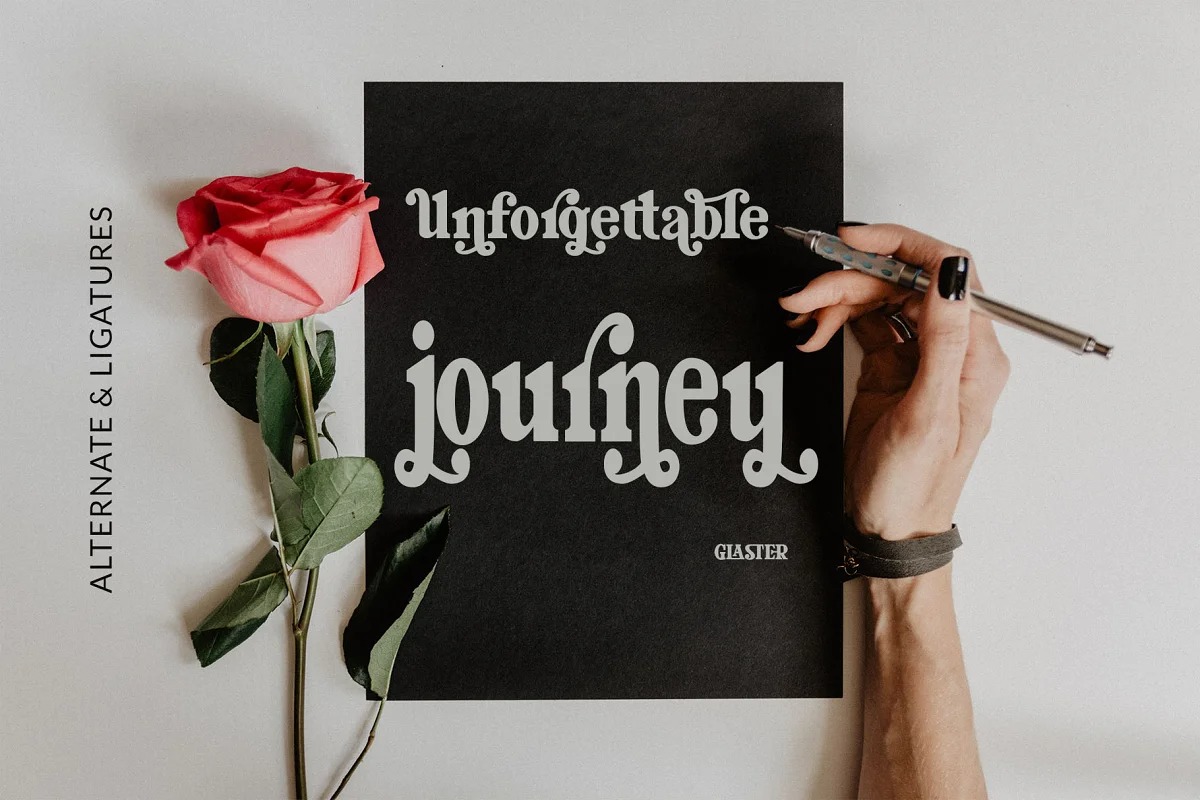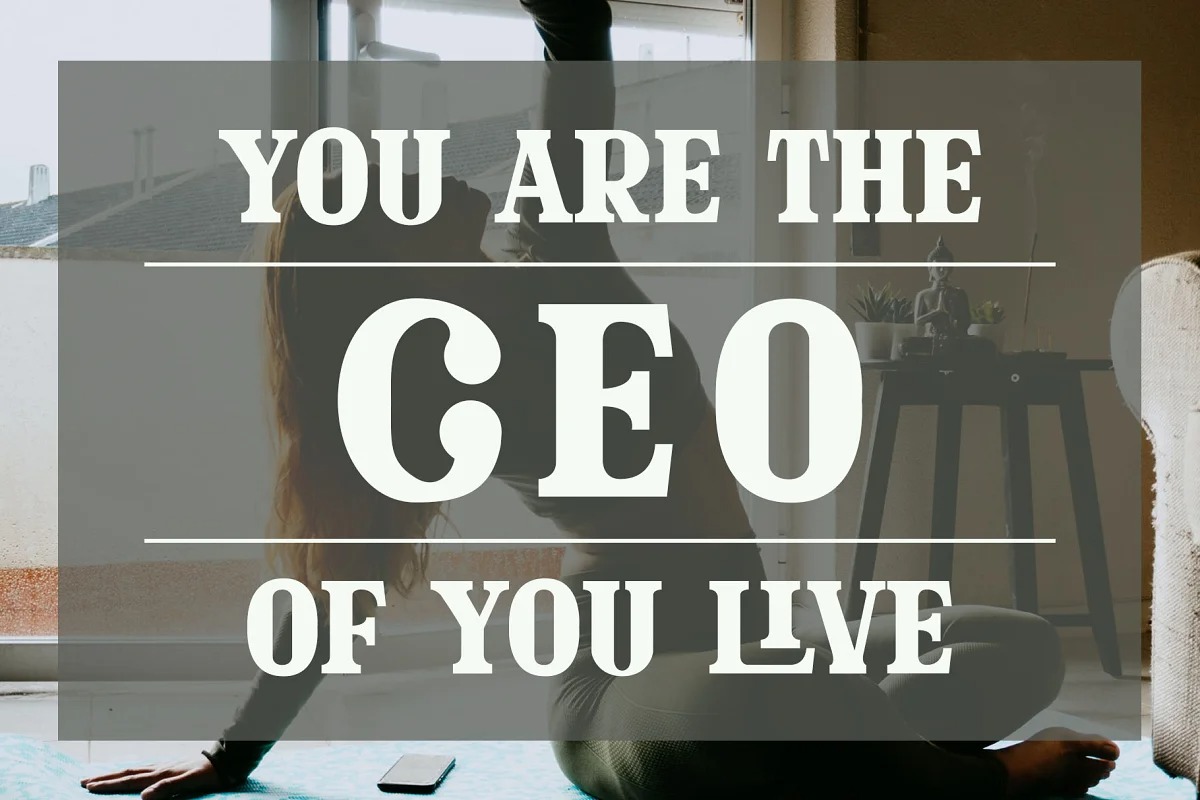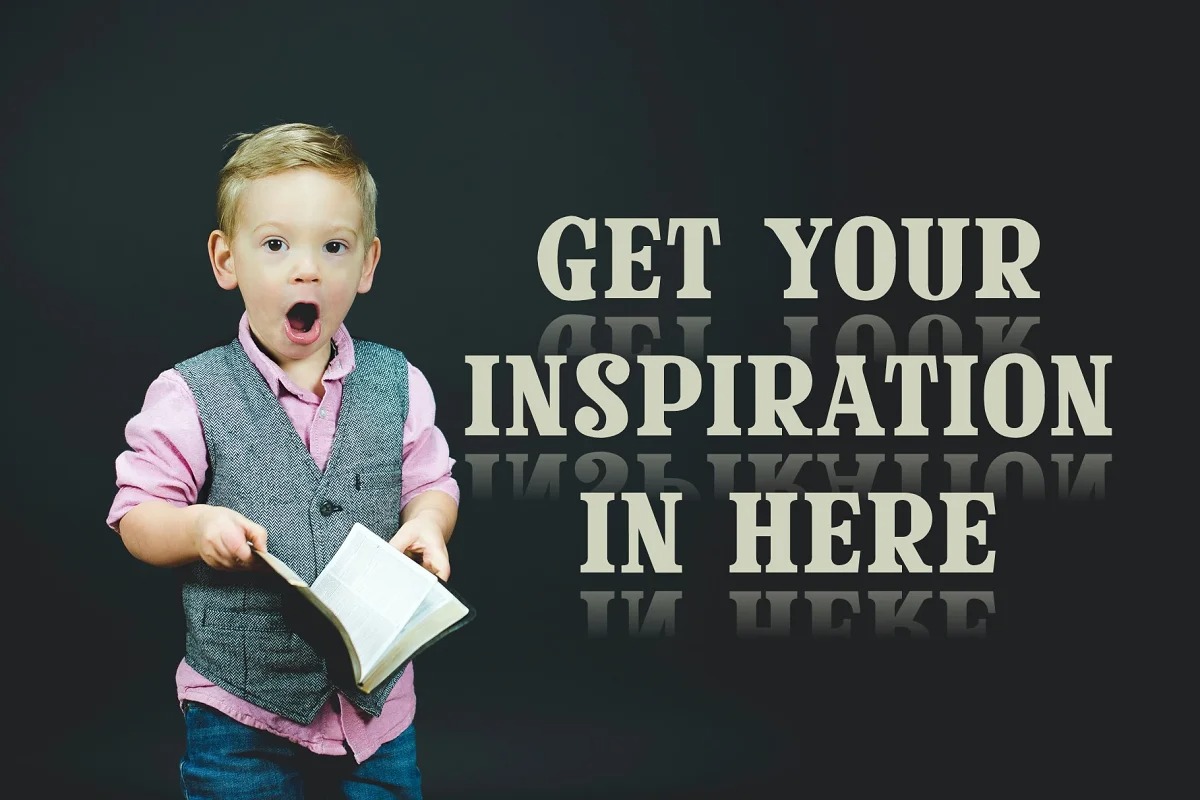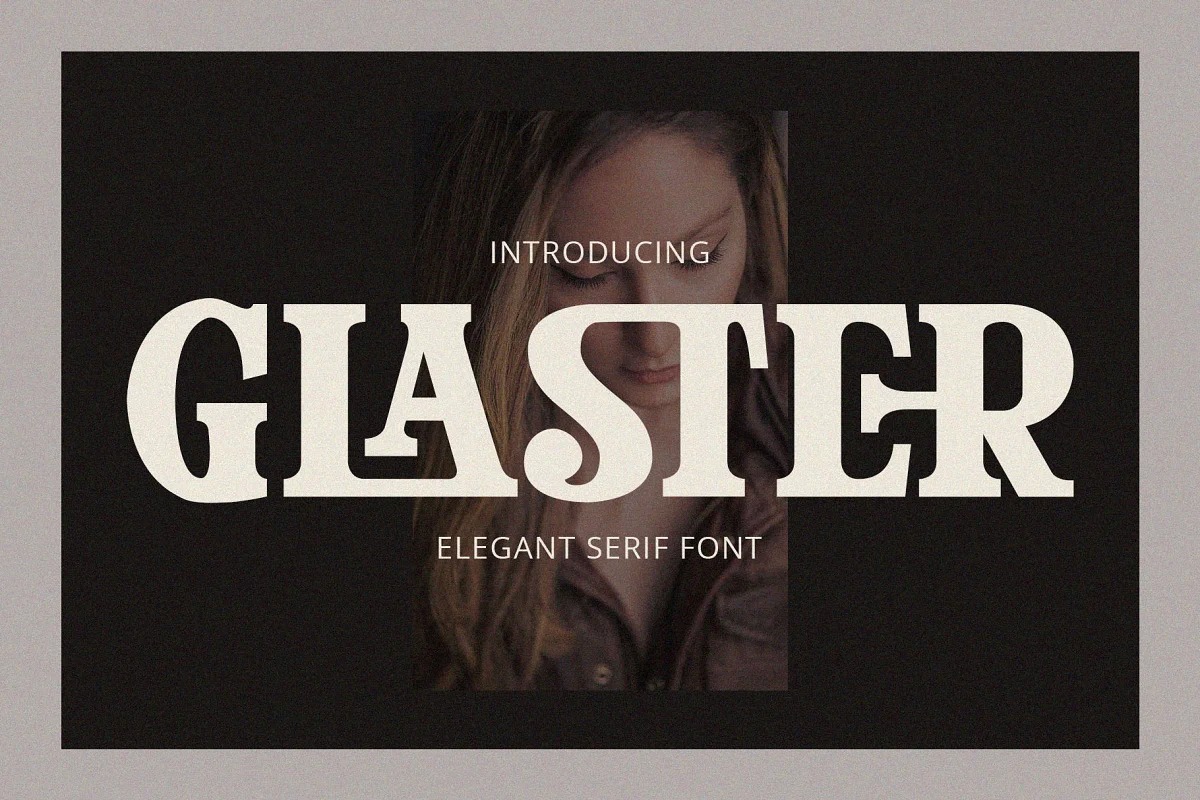
Glaster Font
Glaster Serif Font
This font is a bold and stylish serif typeface manufactured by alifgraphic. Choose the letter you like from a variety of variations to get a look that suits your taste. Glaster is a very versatile font, It is a medium contrast display font perfect for branding projects, logos, wedding designs, social media posts, advertisements, product packaging, product designs, labels, photography, watermarks, invitations, stationery and any project, made with a high level of readability. Glaster Elegant Ligature is a modern fashion serif font, each letter has been carefully crafted to make your text look unique.